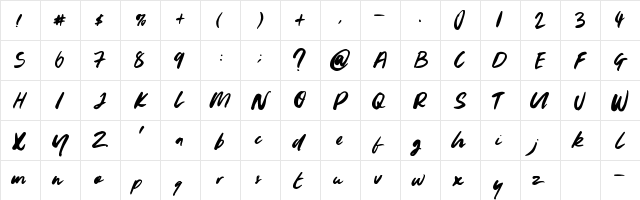
Youngblood Regular
| Designer | Zaffar Ansari |
Design Context for Youngblood Typeface
Youngblood carries an unsettling edge — its distorted letterforms are built to unsettle, perfectly suited to horror, Halloween, and dark creative work.
Perfect for anything that needs to unsettle — game titles, horror branding, and macabre invitations.
Font Pairing: Pair with a clean neutral sans-serif for body copy to let Youngblood's character lead without overwhelming the composition.
Pro Tip: Use Youngblood at larger display sizes for maximum impact. Consider generous tracking to let the disturbing character of each letterform breathe.